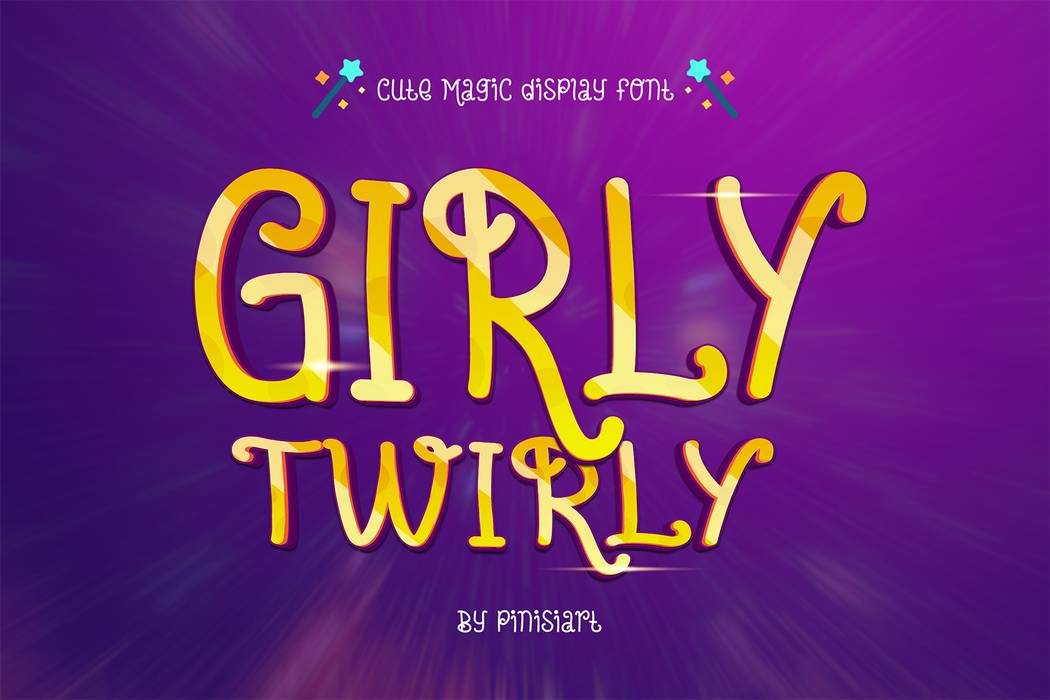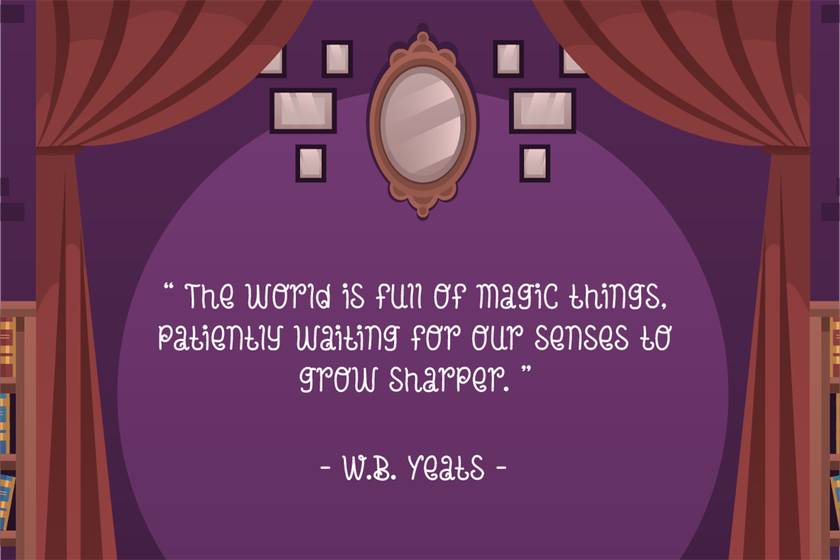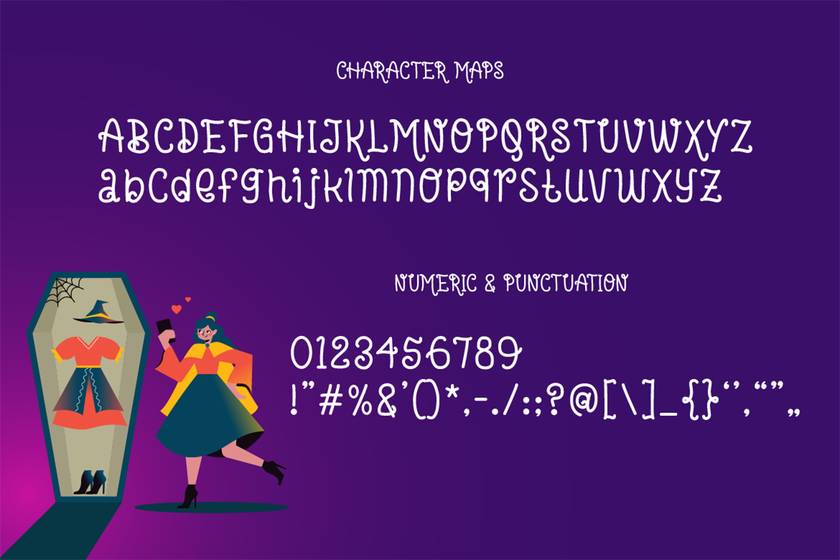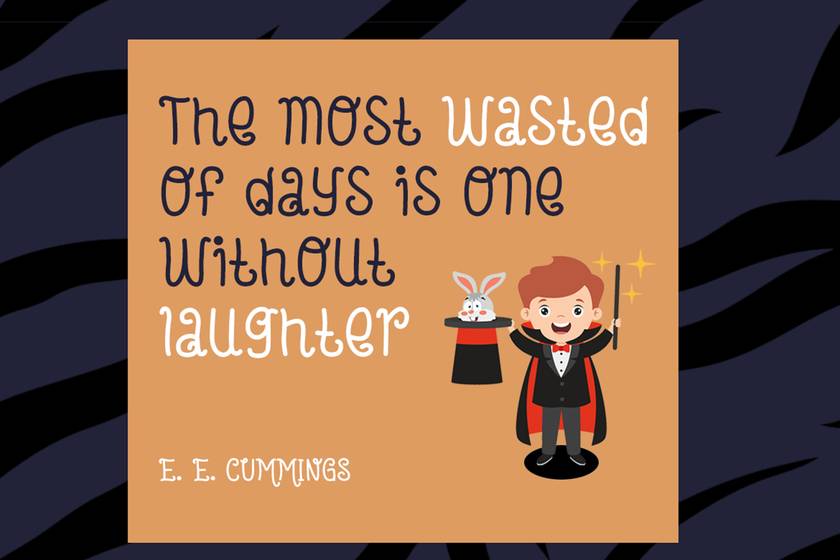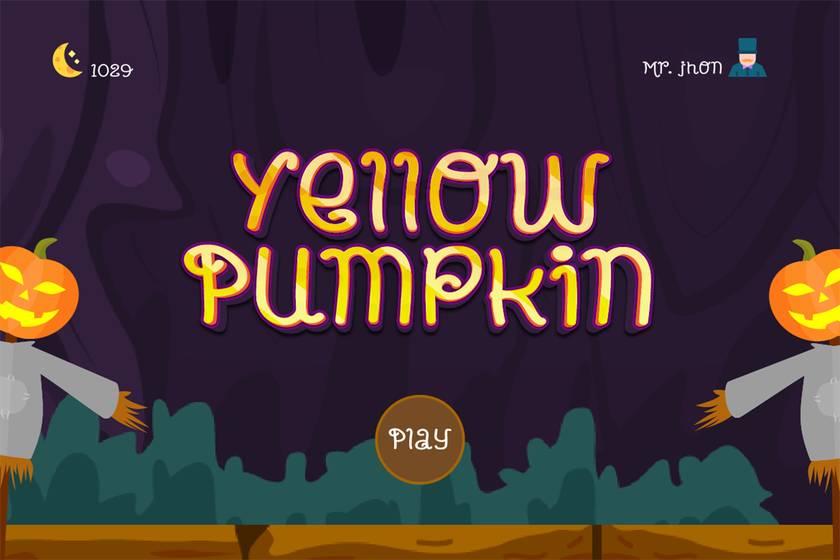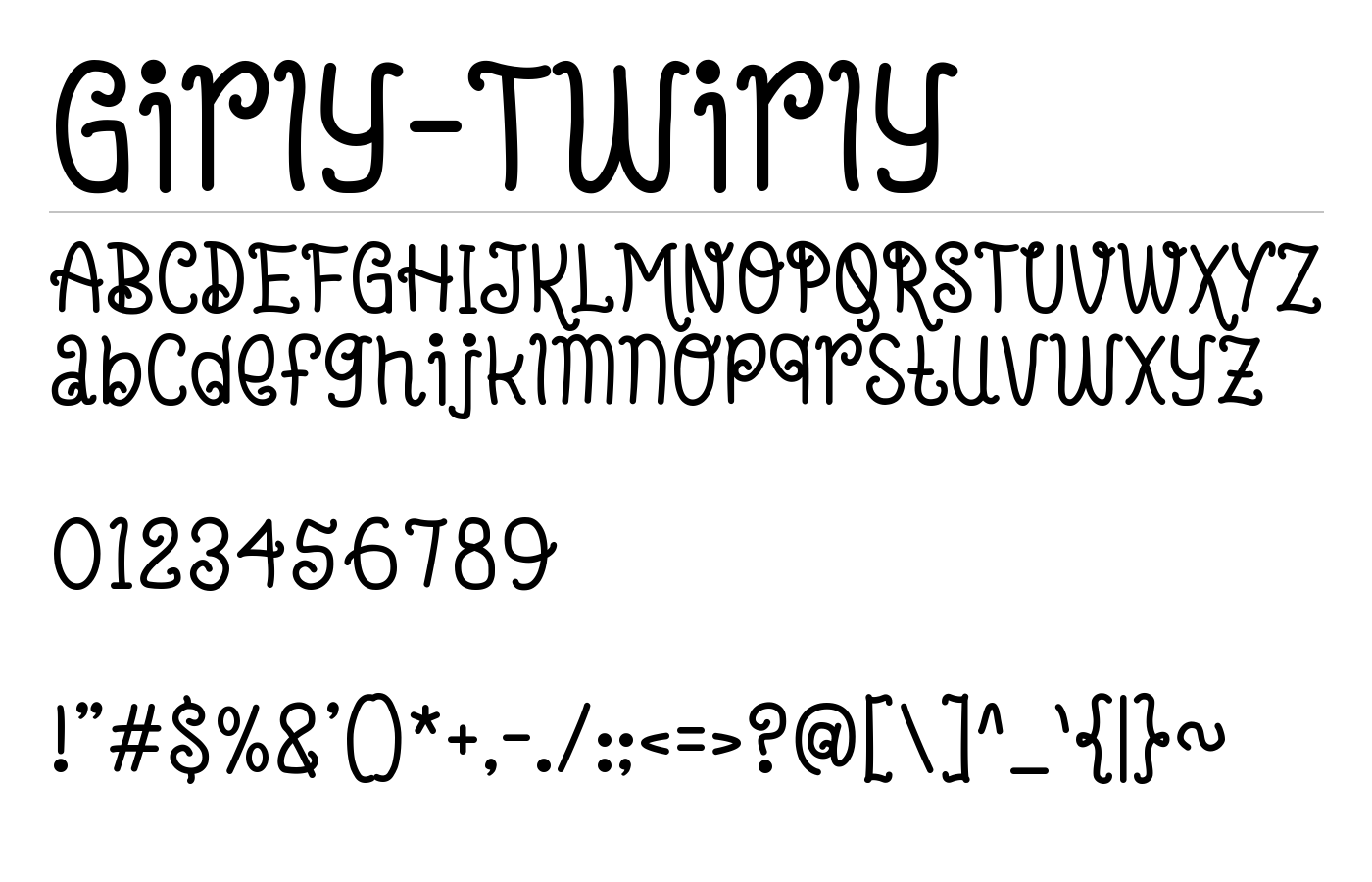
Girly Twirly is a playful, hand-drawn sans serif font with slender strokes and whimsical, curly details that lend it a fun and youthful charm. Its casual, slightly irregular letterforms make it perfect for creative projects like kids' books, informal branding, and lively headlines where a lighthearted and approachable feel is desired. This font works best in display settings where its unique personality can shine.
Girly Twirly Font
About Girly Twirly Font